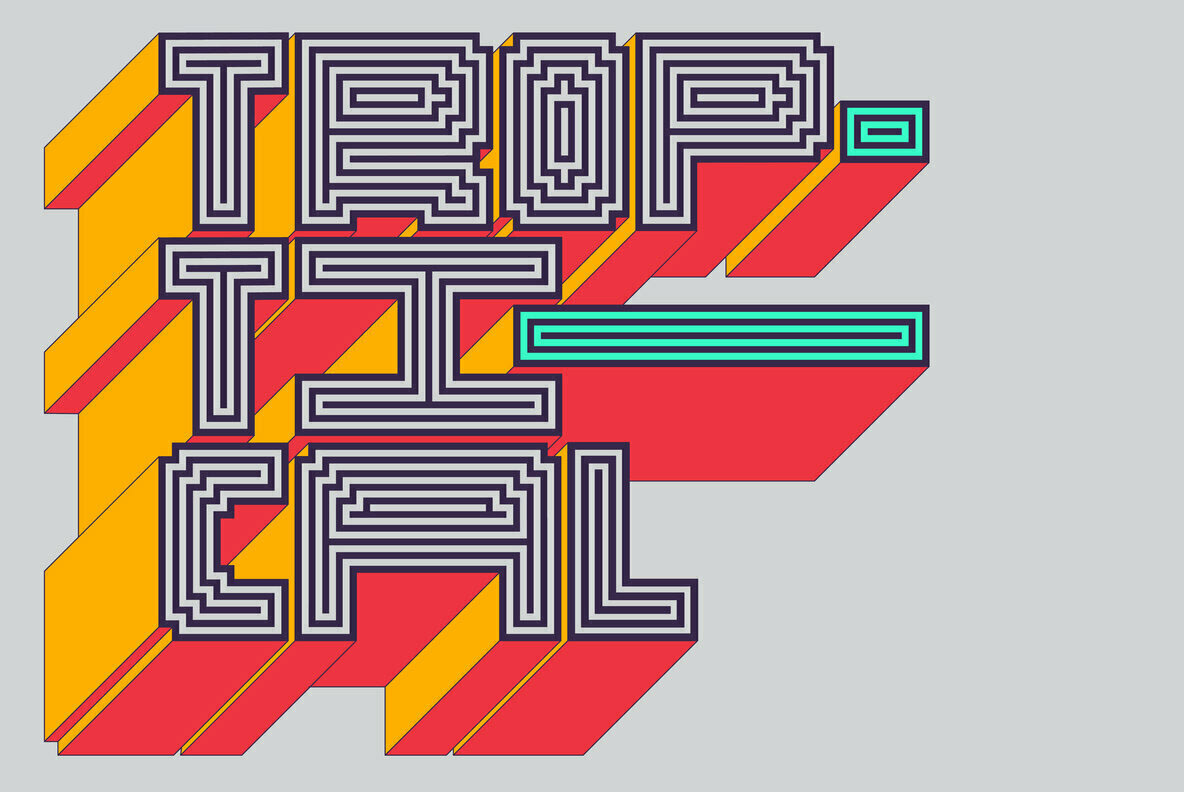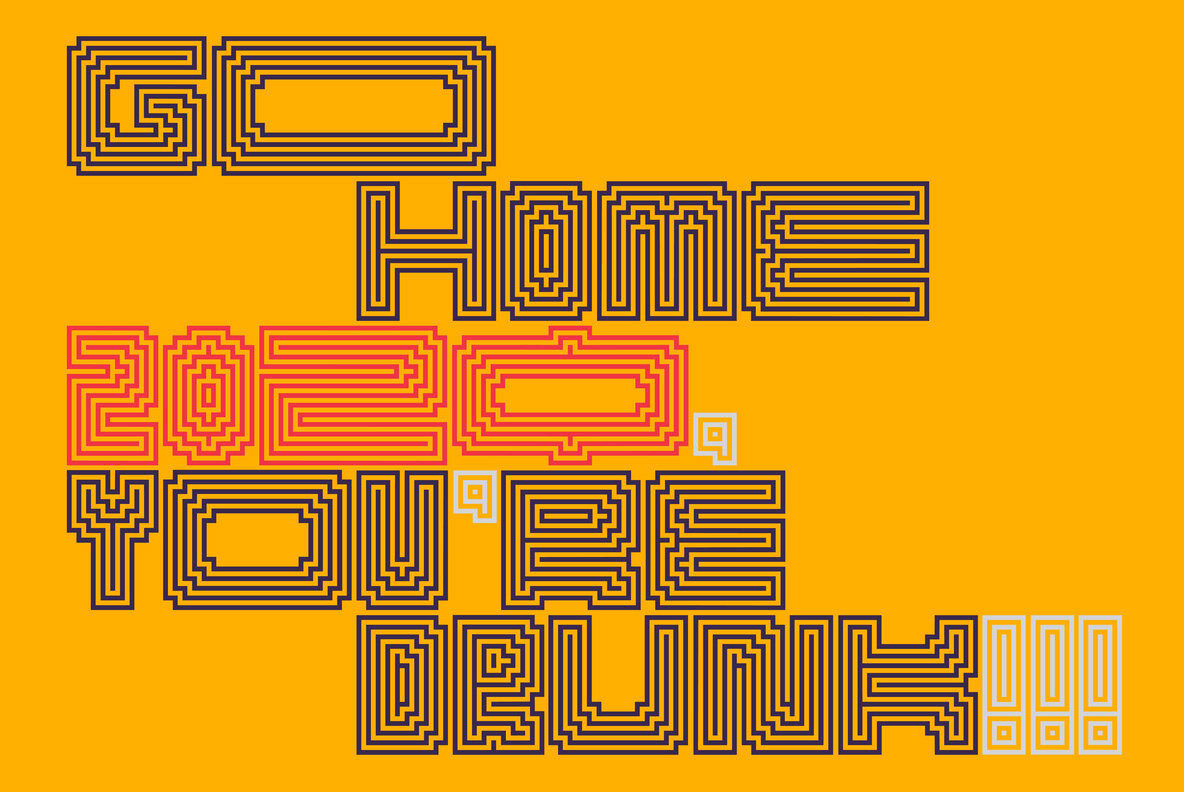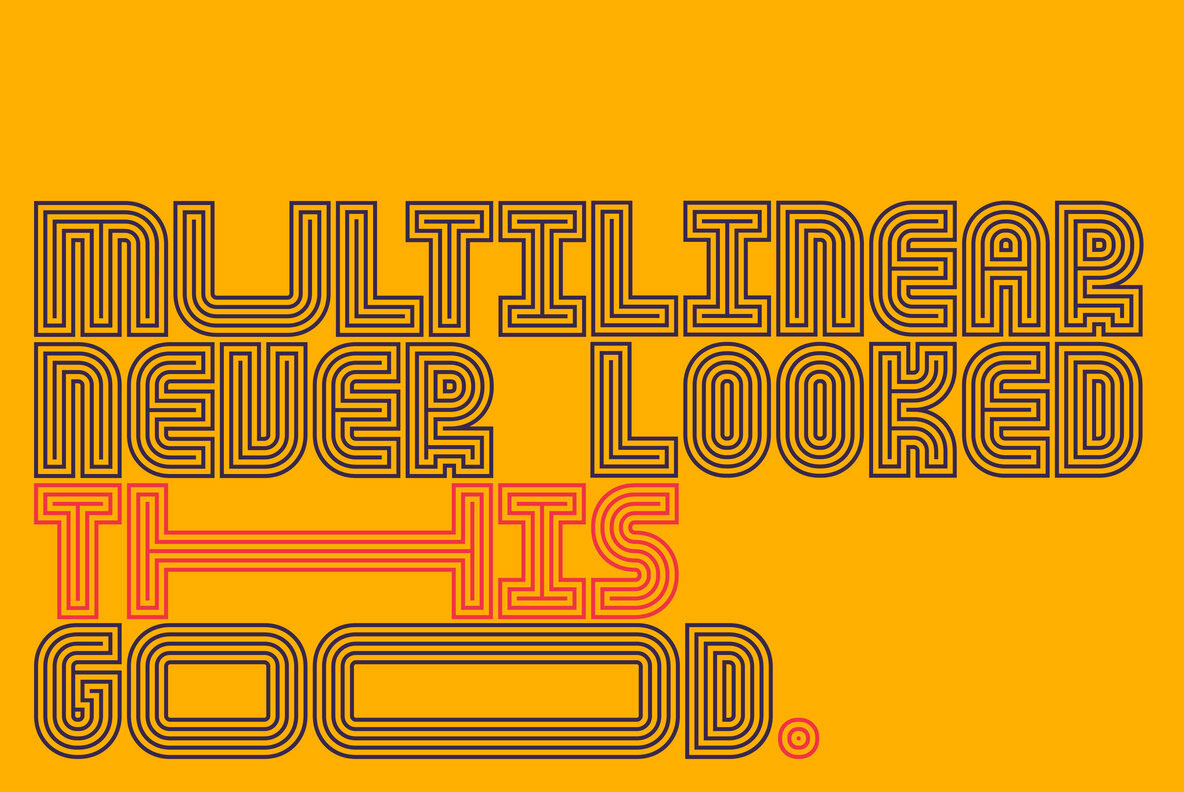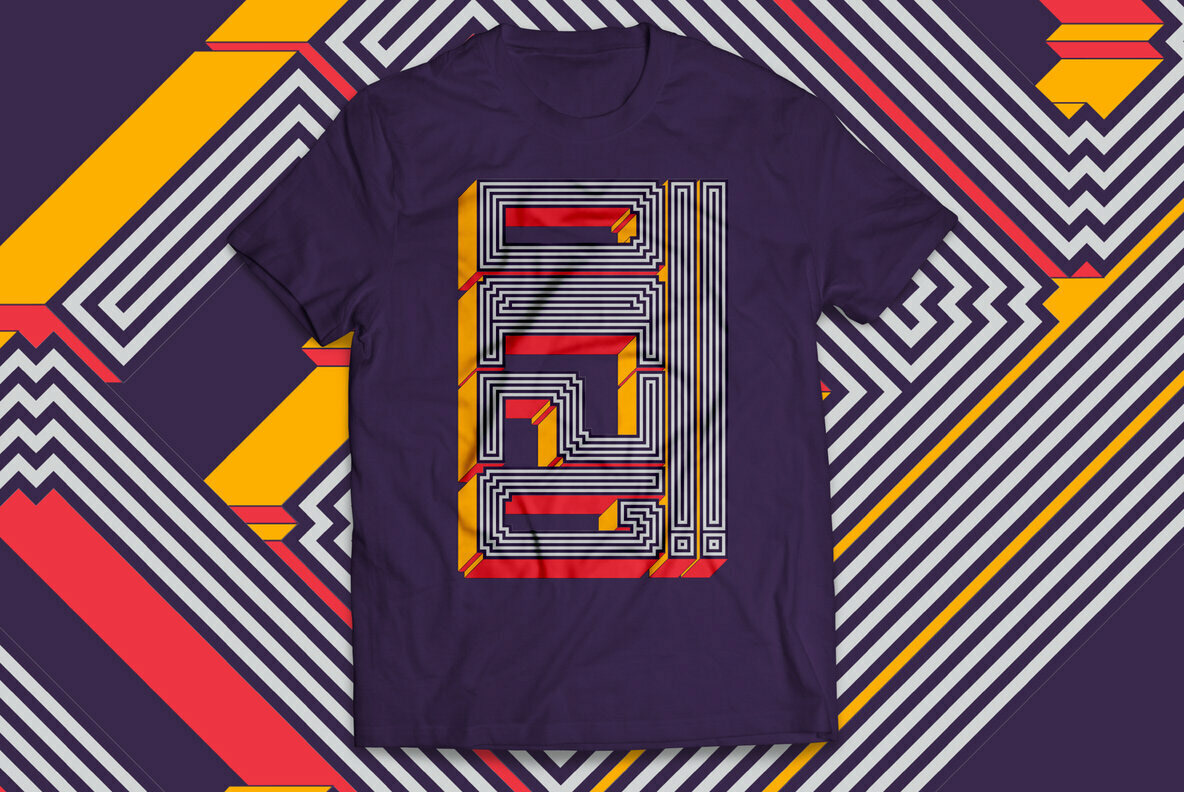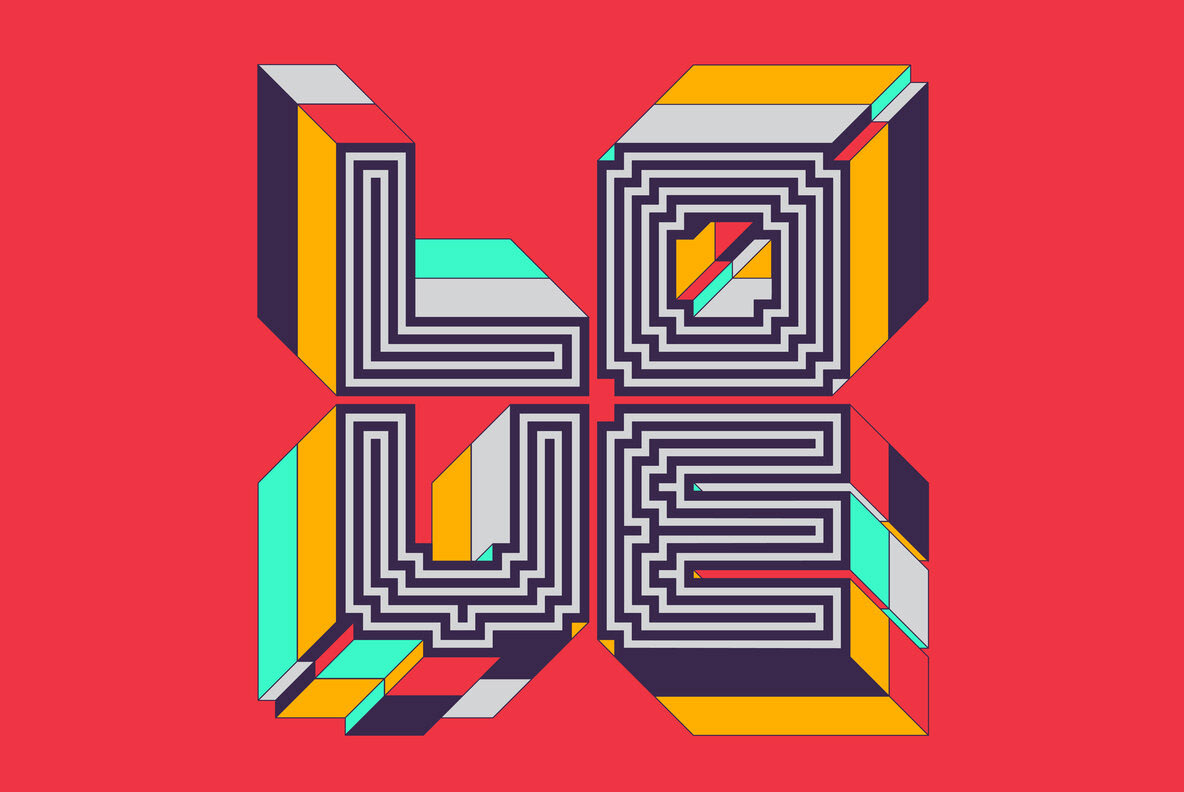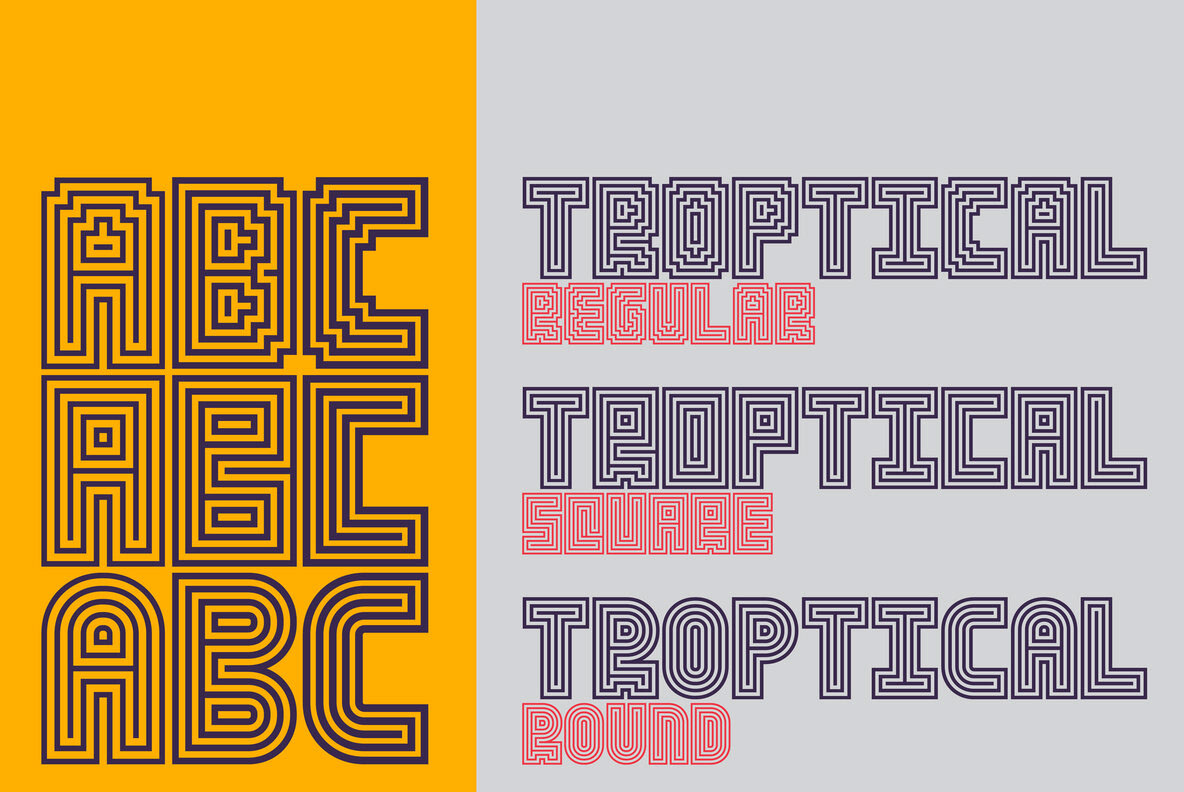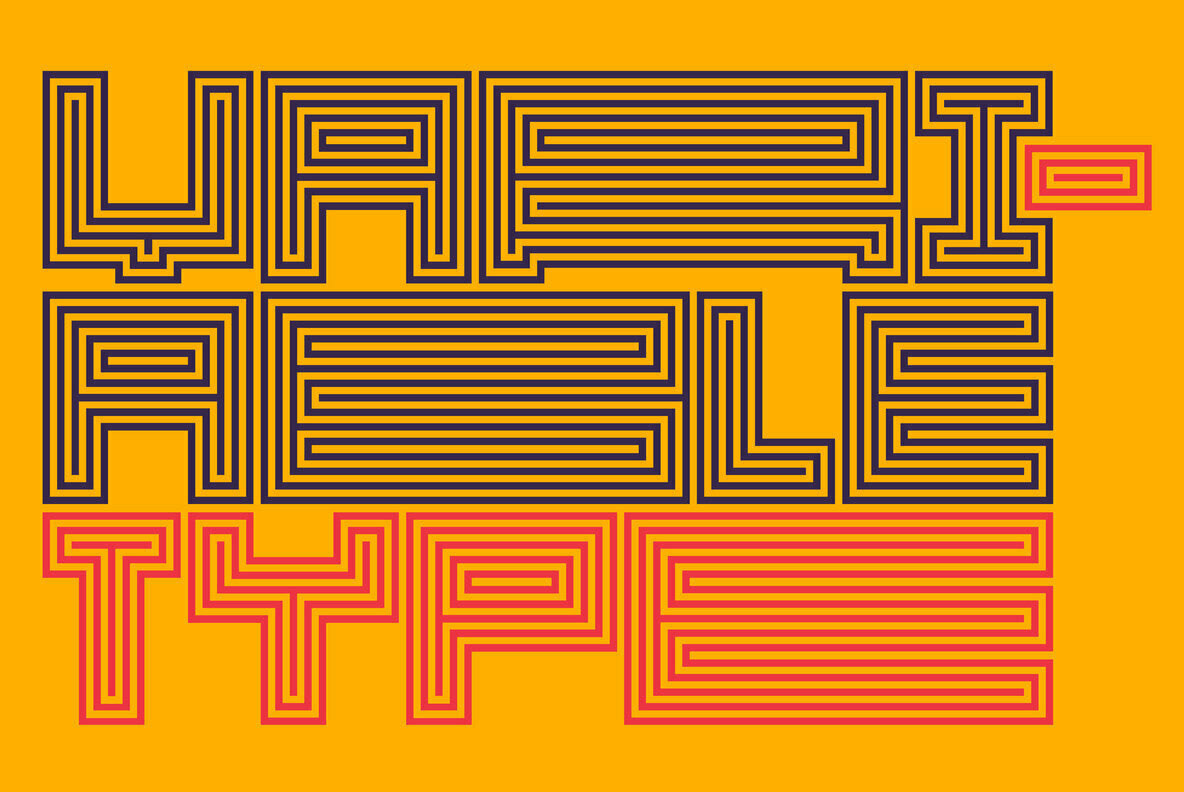
Chrisb Marquez and In-House shared a beautiful typography project titled Troptical, a hypnotic, energetic multilinear typeface that’s all rhythm and movement. Featuring concentric lines and angular construction, Troptical is inspired by the dazzling dynamism of op-art and the clever geometry of Latin American design, with a dash of 8-bit video game playfulness. Powered by YWFT